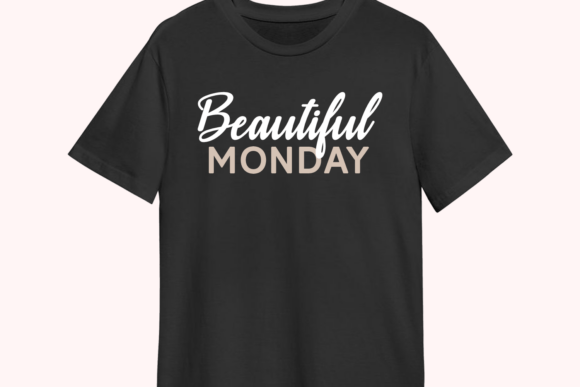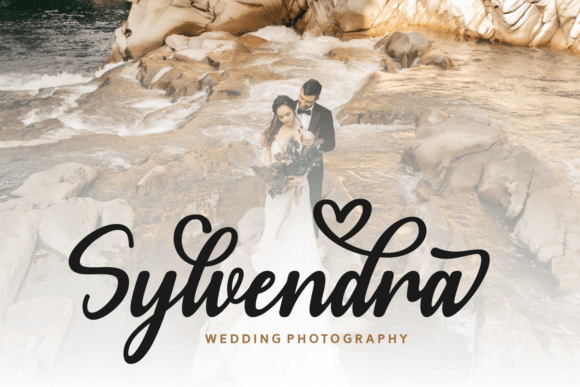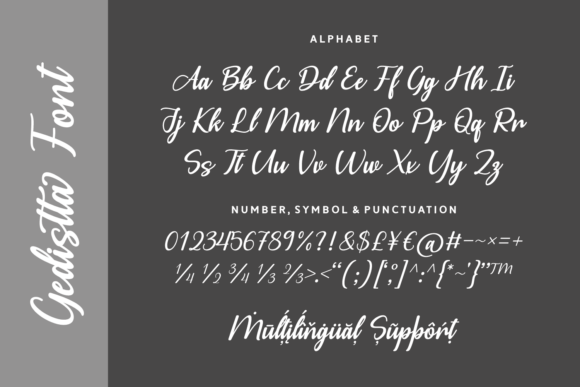
Gedistta Font: The Perfect Handwritten Script for Your Design Needs
In the world of typography, fonts play a crucial role in conveying the tone and personality of a design. For designers and crafters looking for a font that exudes a sense of love, playfulness, and elegance, Gedistta Font is an excellent choice. This lovely handwritten script font has gained popularity for its unique blend of bold strokes, graceful swashes, and a playful heart accent.
What Makes Gedistta Font Special?
Gedistta Font is a beautifully crafted handwritten script font that is perfect for love-themed designs, branding, quotes, social media, and handmade product packaging. Its casual charm and stylish curves make it an ideal choice for designers who want to add a personal touch to their projects. The font’s bold strokes and swashes give it a sense of confidence and sophistication, while its playful heart accent adds a touch of whimsy and romance.
Key Features of Gedistta Font
- Handwritten Script: Gedistta Font has a natural, handwritten feel that makes it perfect for designs that require a personal touch.
- Bold Strokes: The font’s bold strokes give it a sense of confidence and sophistication, making it ideal for headlines and titles.
- Graceful Swashes: The font’s swashes add a touch of elegance and refinement, making it perfect for designs that require a sense of luxury and sophistication.
- Playful Heart Accent: The font’s playful heart accent adds a touch of whimsy and romance, making it perfect for love-themed designs and Valentine’s Day projects.
Use Cases for Gedistta Font
Gedistta Font is a versatile font that can be used for a variety of design projects, including:
- Love-Themed Designs: Gedistta Font is perfect for designing love-themed posters, cards, and social media graphics.
- Branding: The font’s unique blend of bold strokes and swashes makes it an excellent choice for branding projects that require a sense of elegance and sophistication.
- Quotes: Gedistta Font is perfect for designing inspirational quotes and posters that require a sense of personality and style.
- Social Media: The font’s playful heart accent and bold strokes make it an excellent choice for social media graphics and posts.
- Handmade Product Packaging: Gedistta Font is perfect for designing handmade product packaging that requires a personal touch and a sense of elegance.
Why Choose Gedistta Font?
Gedistta Font is an excellent choice for designers and crafters who want to add a personal touch to their projects. Here are some reasons why:
- Unique and Versatile: Gedistta Font is a unique and versatile font that can be used for a variety of design projects.
- Elegant and Refined: The font’s bold strokes and swashes give it a sense of elegance and refinement, making it perfect for designs that require a sense of luxury and sophistication.
- Playful and Whimsical: The font’s playful heart accent adds a touch of whimsy and romance, making it perfect for love-themed designs and Valentine’s Day projects.
- Easy to Read: Gedistta Font is easy to read, making it perfect for designs that require a sense of clarity and legibility.
In conclusion, Gedistta Font is a lovely handwritten script font that is perfect for designers and crafters looking for a font that exudes a sense of love, playfulness, and elegance. Its unique blend of bold strokes, swashes, and a playful heart accent makes it an excellent choice for a variety of design projects, including love-themed designs, branding, quotes, social media, and handmade product packaging. With its casual charm and stylish curves, Gedistta Font is sure to capture a heartfelt, personal feel that will make your designs stand out.